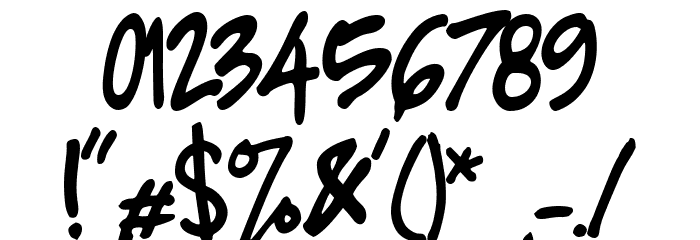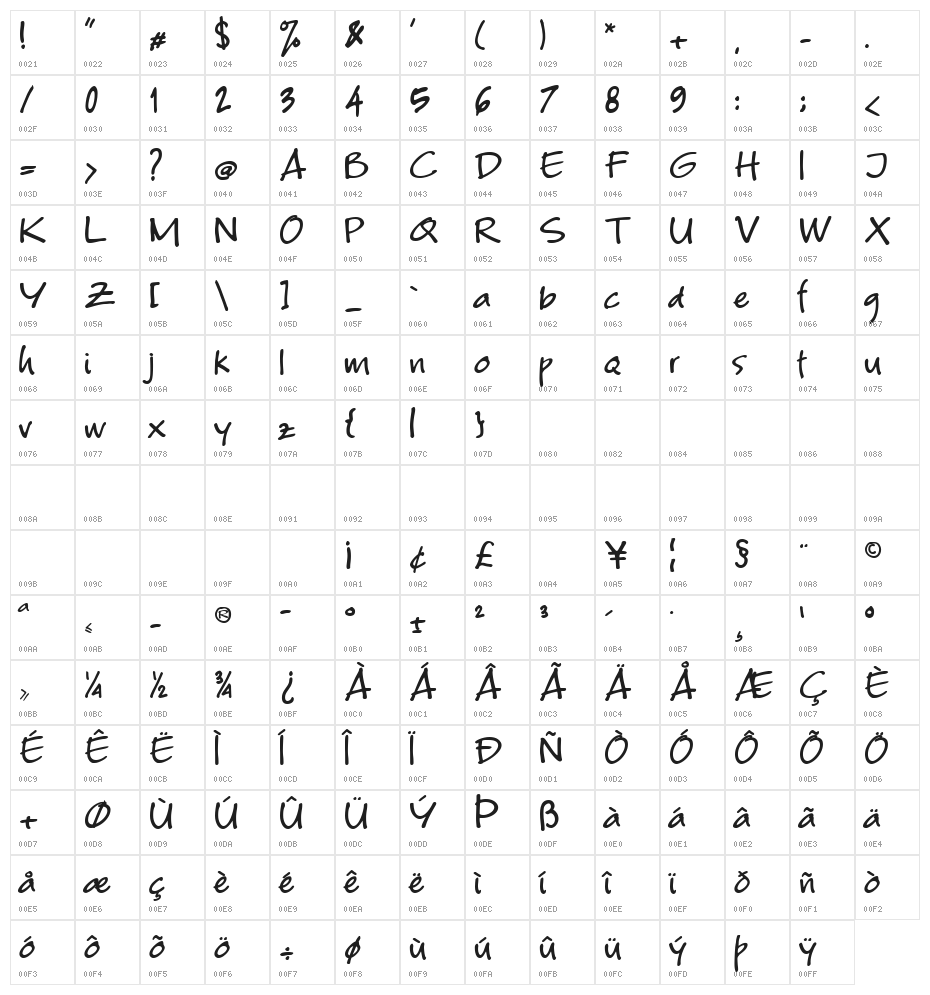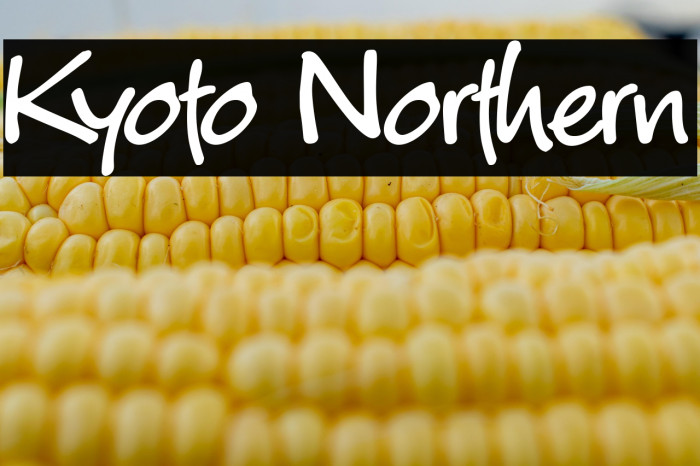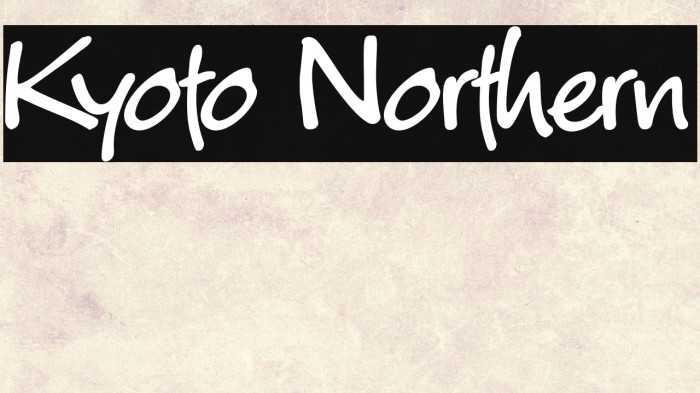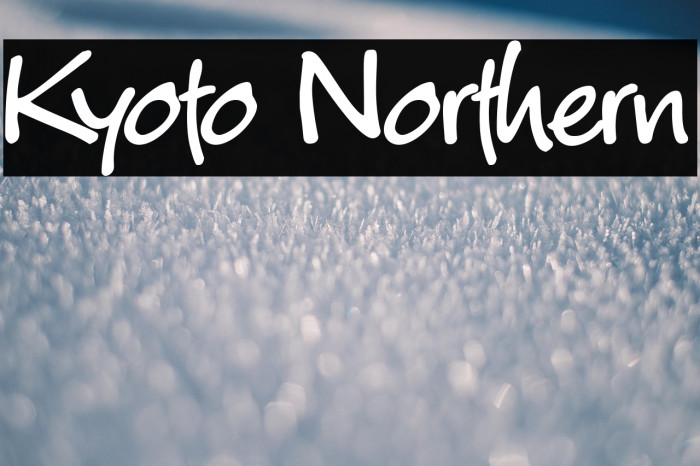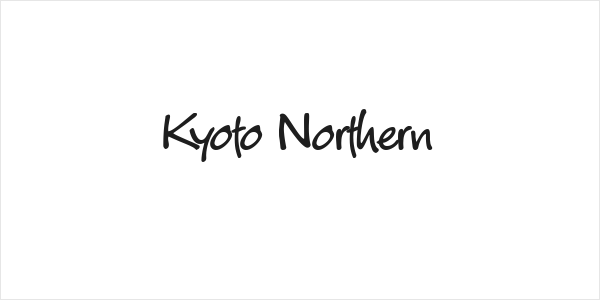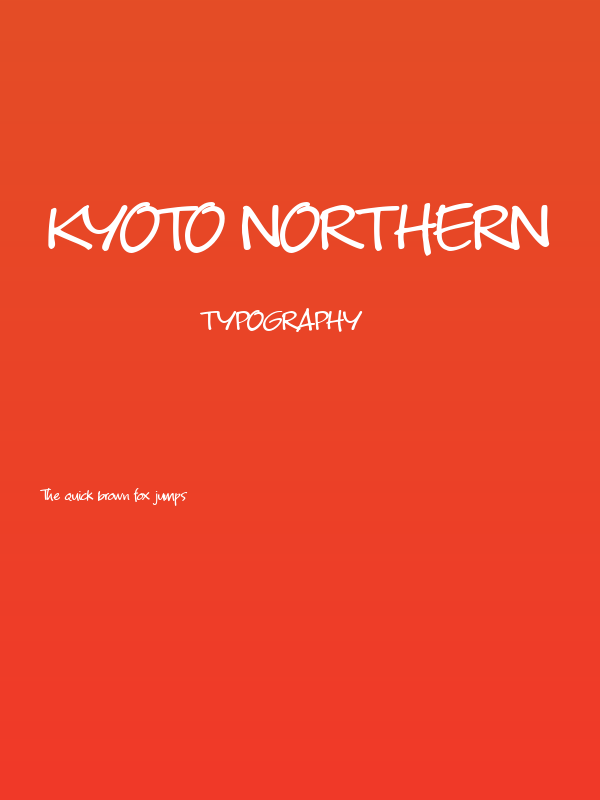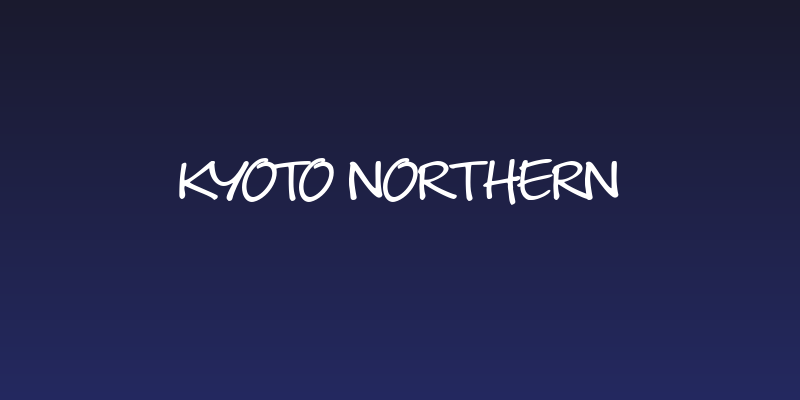
Kyoto Northern Font
Kyoto Northern Description
This font exhibits a dynamic and energetic handwritten style, characterized by its fluid and slightly irregular strokes. The uppercase letters are bold and confident, with a slight slant that adds a sense of movement. The lowercase letters maintain a consistent flow, complementing the uppercase with their rounded forms and smooth connections. Numbers are clear and legible, maintaining the same handwritten aesthetic. Special characters are creatively integrated, maintaining the overall playful and informal vibe. The font's organic appearance makes it suitable for projects that require a personal touch.